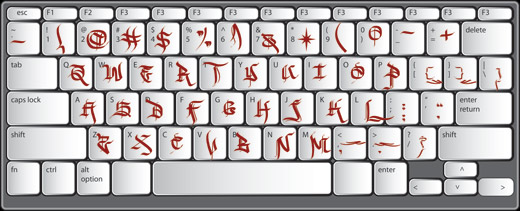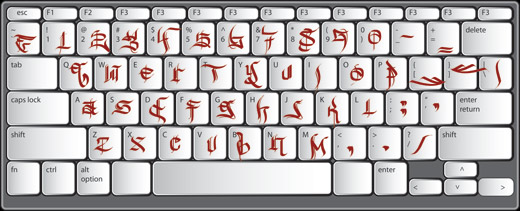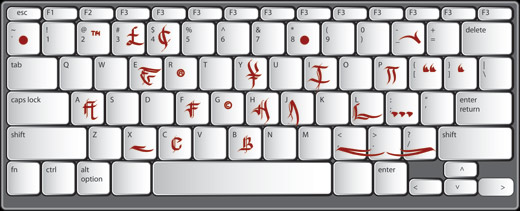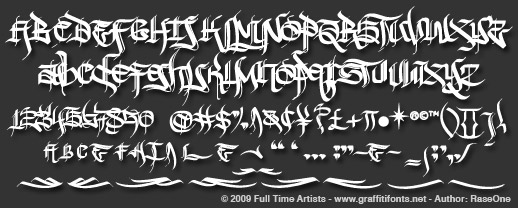
New English™
EXCLUSIVE! - All new Graffiti Font™
With 2 full alphabets & a full array of symbols & decorations this style can look elegant or insane. New English™ is easy to customize for infinite unique looks.